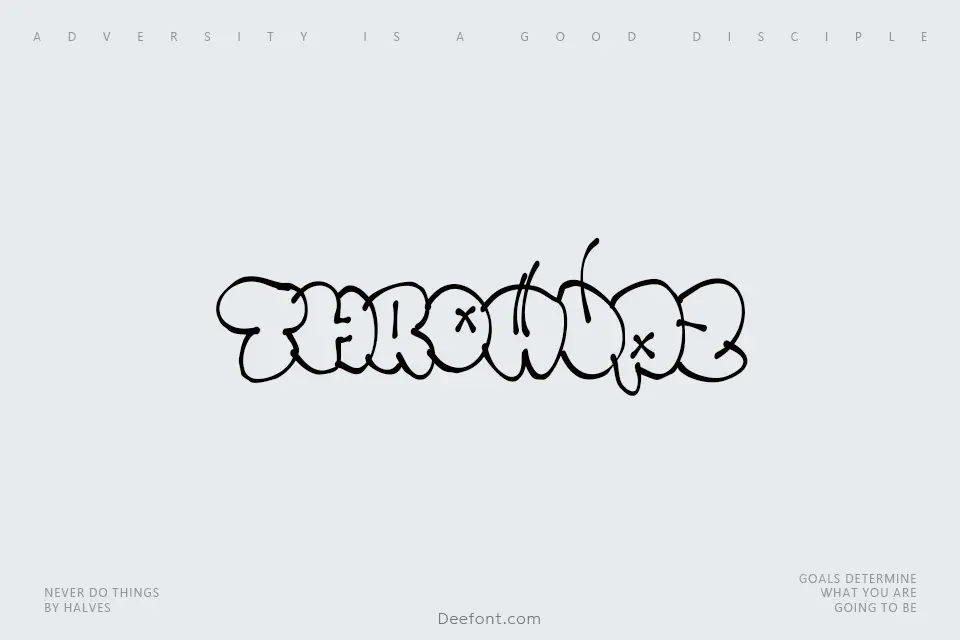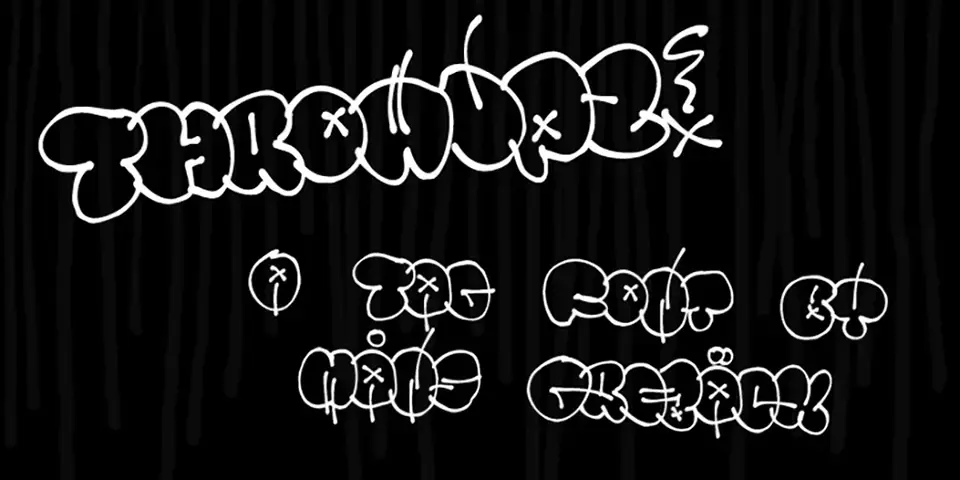
Throwupz Font
Throwupz is a bold graffiti-inspired script font featuring bubble-like letters with interconnected continuous lines. Designed with urban flair and dynamic flow, each character is enhanced with unique embellishments including crosses and dots, creating an energetic and expressive aesthetic perfect for street art designs, music album covers, and edgy branding projects.